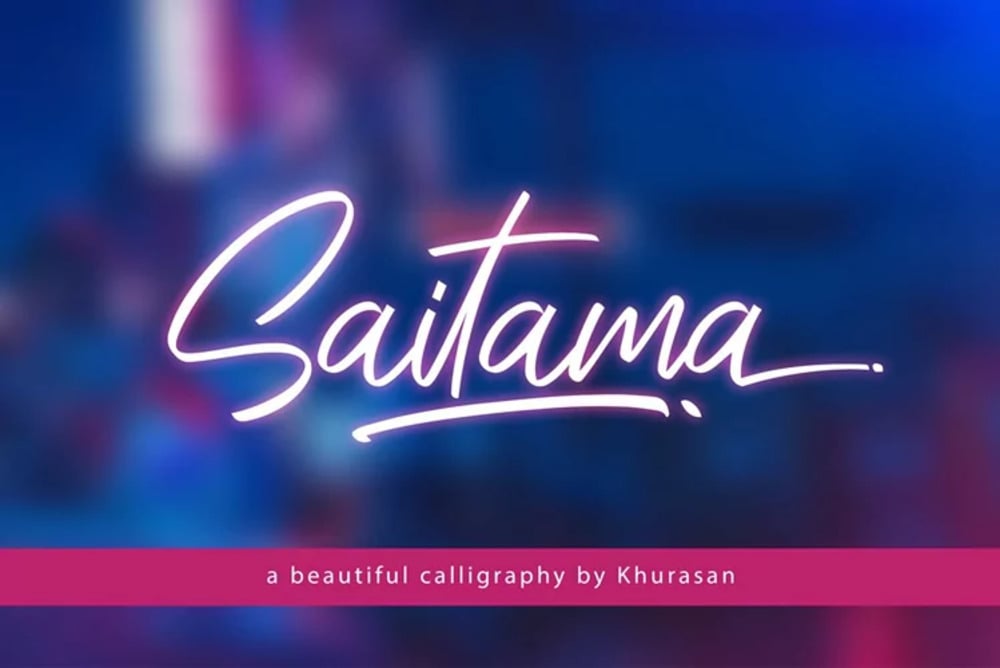
Saitama Font
Saitama is a bold and impactful display font with a strong, geometric presence. Its clean lines and sharp angles give it a modern and powerful feel, making it ideal for headlines, posters, and branding that demands attention. Saitama is particularly well-suited for projects with a masculine or industrial aesthetic. Its robust letterforms convey strength and confidence, making it a great choice for designs that need to make a statement.